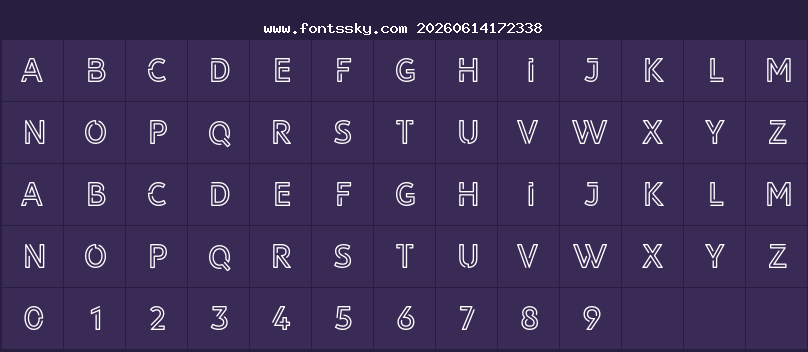
LIBRARY 3 AM soft Preview
• Font Name: LIBRARY 3 AM soft
• Designer: Igor Kosinsky
About LIBRARY 3 AM soft.otf
LIBRARY 3 AM soft.otf is a modern, elegant sans-serif font designed for ultimate readability and visual harmony. Perfect for branding, headlines, web design, and print materials.